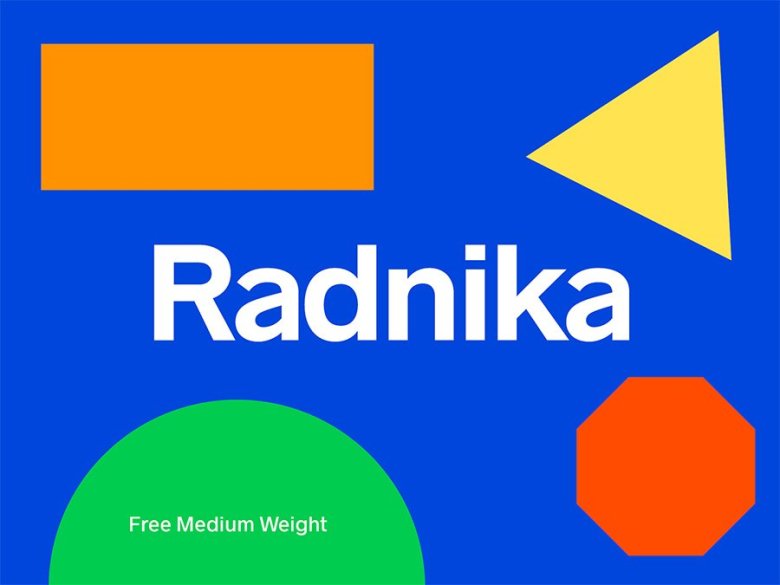
Radnika Medium
Radnika™ is a workhorse type. The name Radnika is from the word Radnik meaning worker. This free version contains Radnika Medium which is free to download. If you like it, feel free to check out Radnika Typeface full version that contains 2 styles and 6 weights.